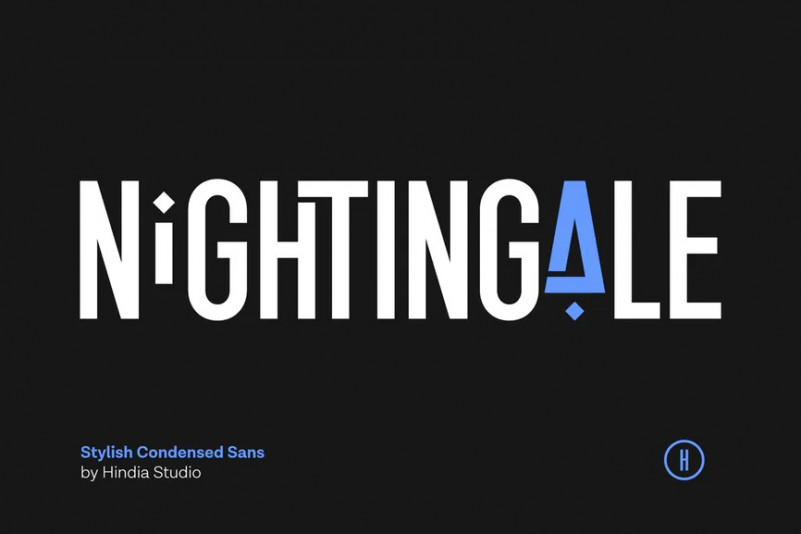
Nightingale Font
Nightingale is a gorgeous condensed sans serif typeface that comes with various stylistic alternates. This is perfect to sweeten up your headlines, branding visual identity, editorial, poster, and etc.